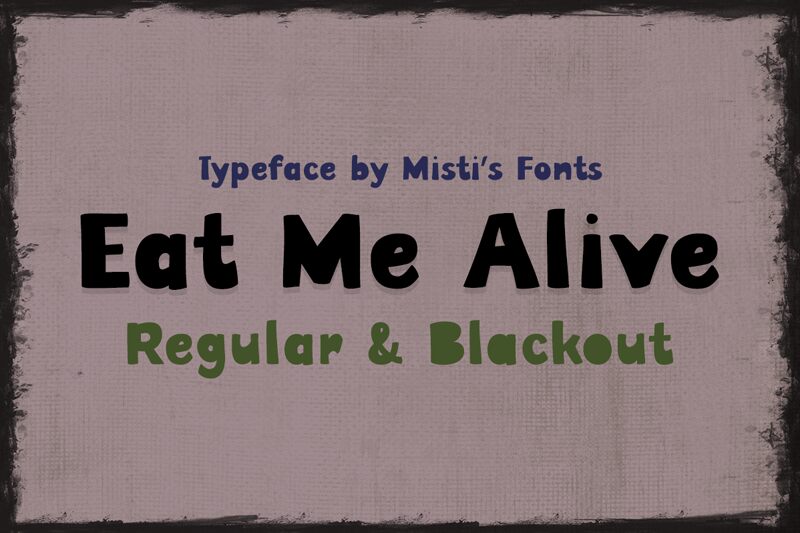
Eat Me Alive font family by Misti's Fonts contains 4 font styles with a high degree of versatility. Taking inspiration from the cartooning world, this free font family combines elements of informality and quirk, giving the fonts a rounded contemporary feel. The result is a typeface that feels slightly whimsical, approachable, casual, friendly, and headline-friendly.
Different types of creative and non-creative projects can benefit from the use of any style from this collection. Posters, cartoons, greeting cards, invitation cards, coloring books, school magazines, worksheets, flyers, labels, packaging, social media posts, websites, and templates are some suggestions.
Eat Me Alive is a bold and playful Halloween-inspired font that features quirky, hand-drawn vibes. Available in Regular and Blackout styles, it is perfect for spooky titles, party invitations, posters, and any design that requires a fun, creepy twist.